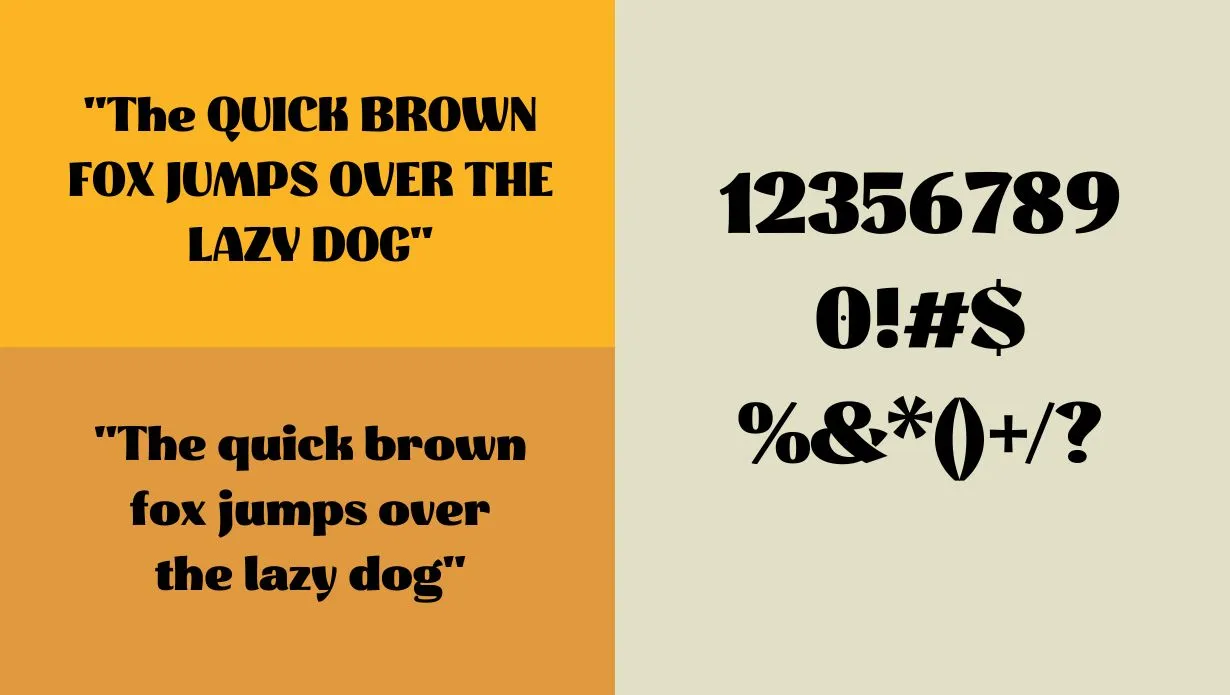
Hype Font was designed by Nils Merkals. This staggering font belongs to the Sans-serif font family. It supports many languages. This cozy Font is a perfect choice for those who are looking for a font that is both stylish and easy to read. This typeface is best for the CSS Family.
This font is perfect for branding, headlines, and any other text that needs to be attention-grabbing. This typeface includes styles and weights that can be used to create a cohesive design. This typeface is best for other programs like Adobe, and Canva. Verb Font is similar to this classy font.
| Name | Hype Font |
| Designer | Nils Merkals |
| Style | Sans seirf |